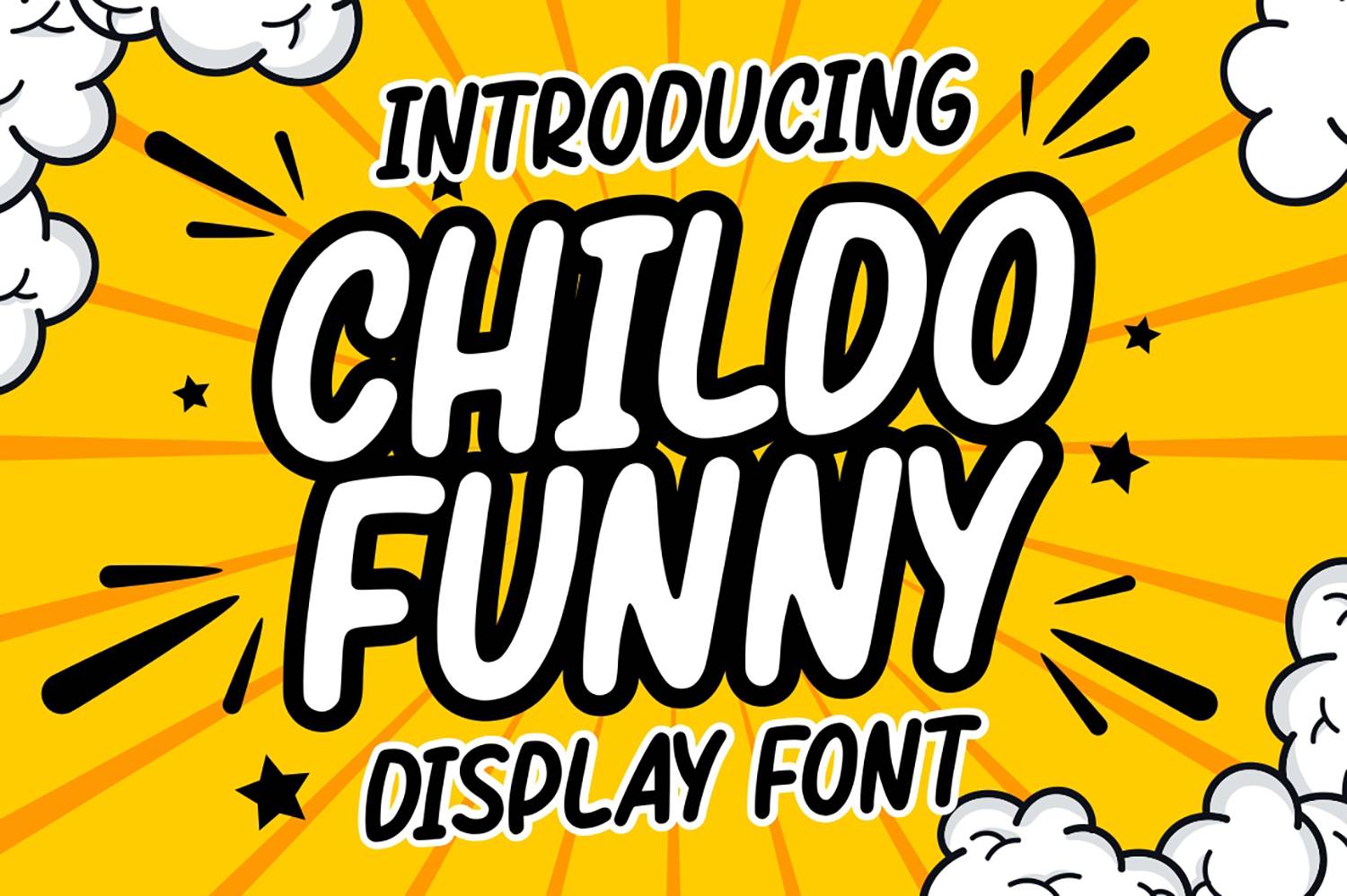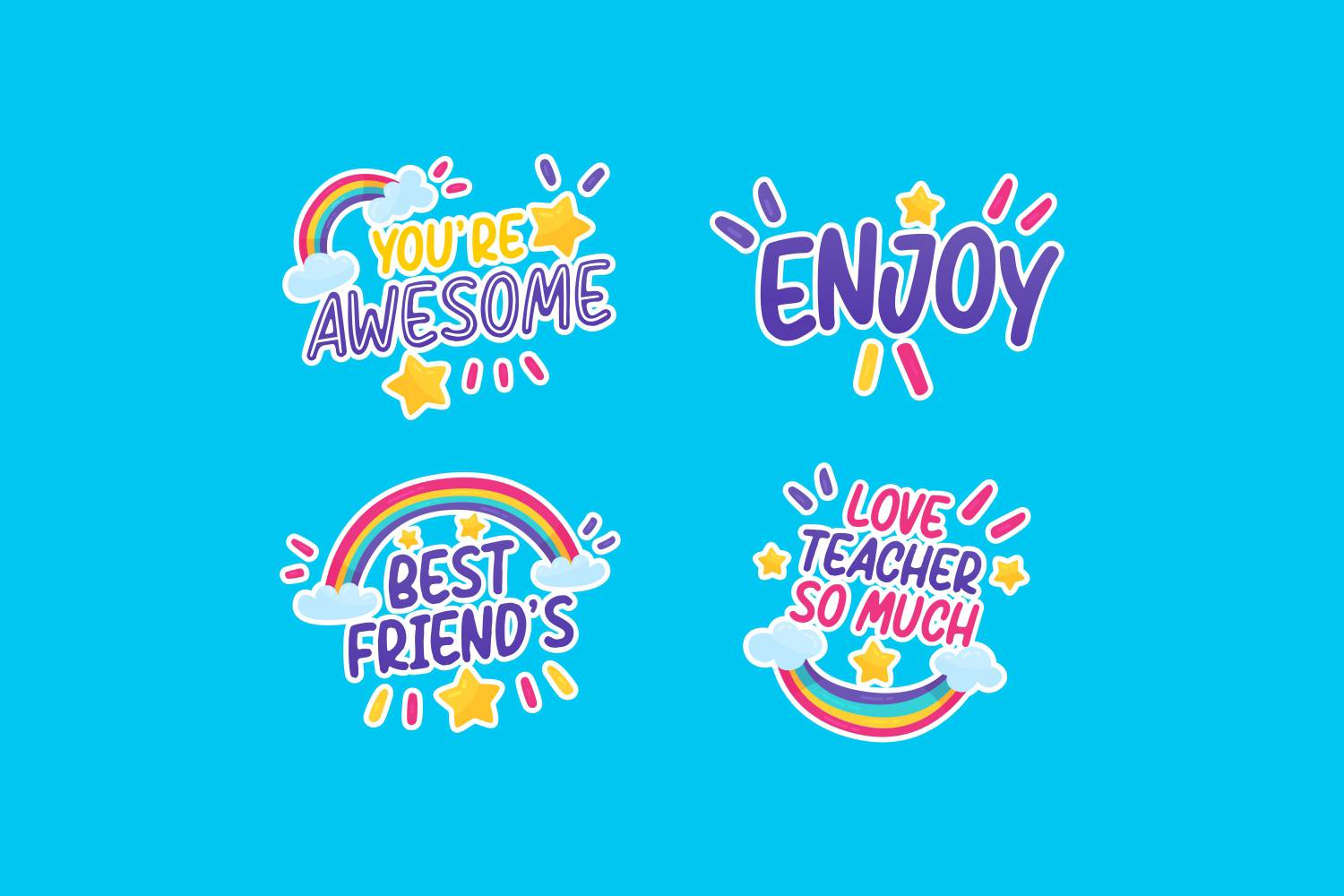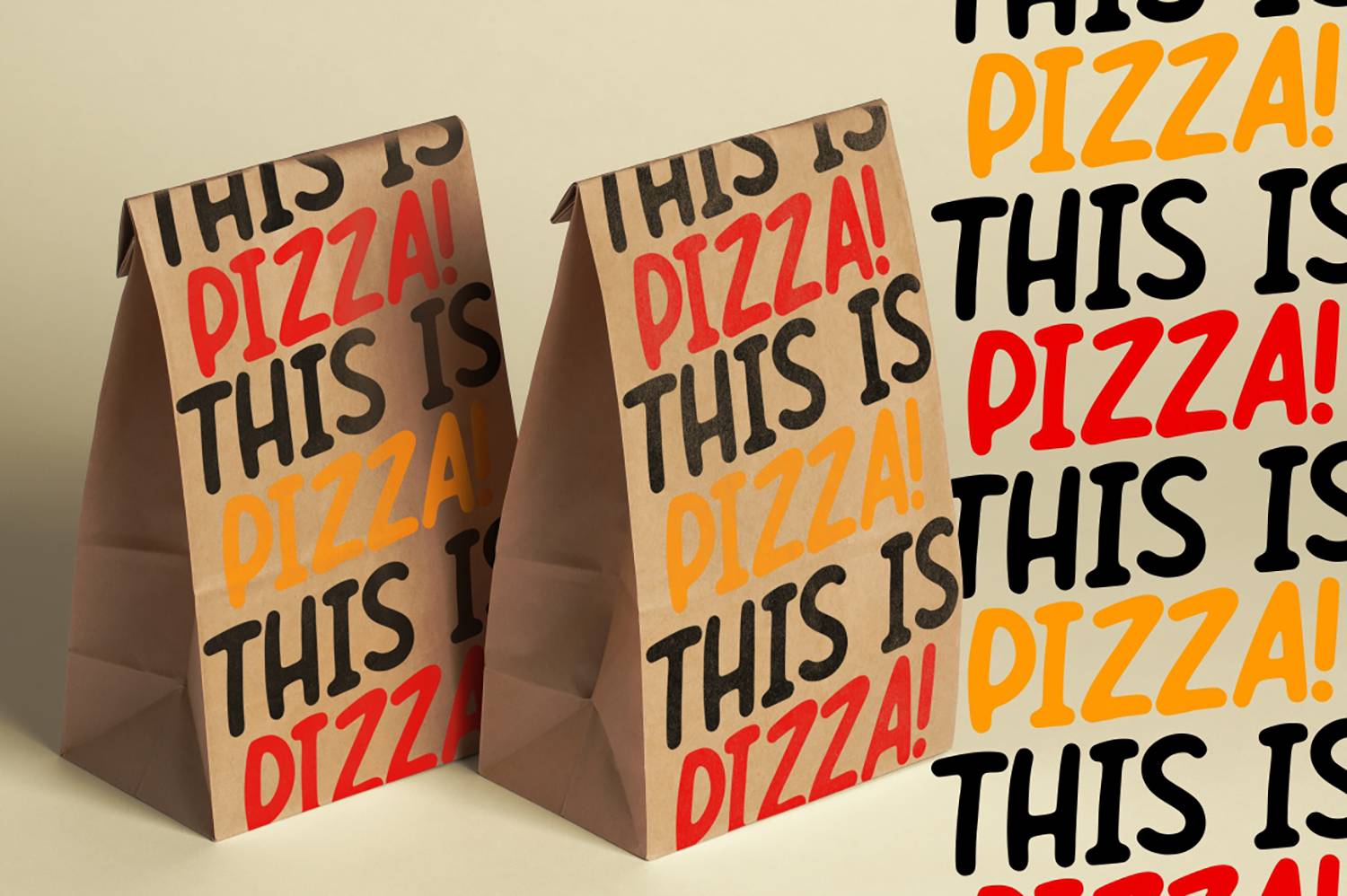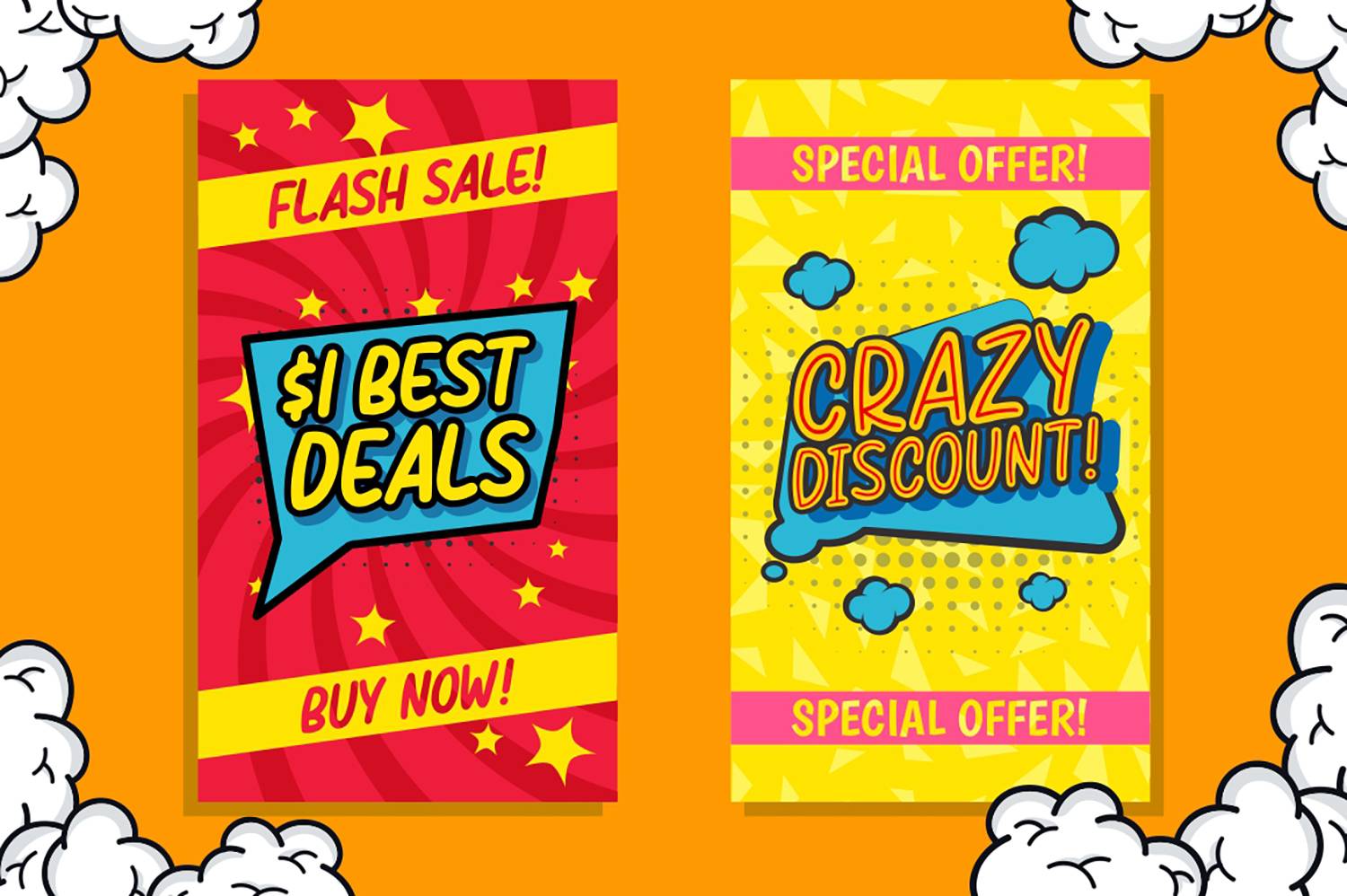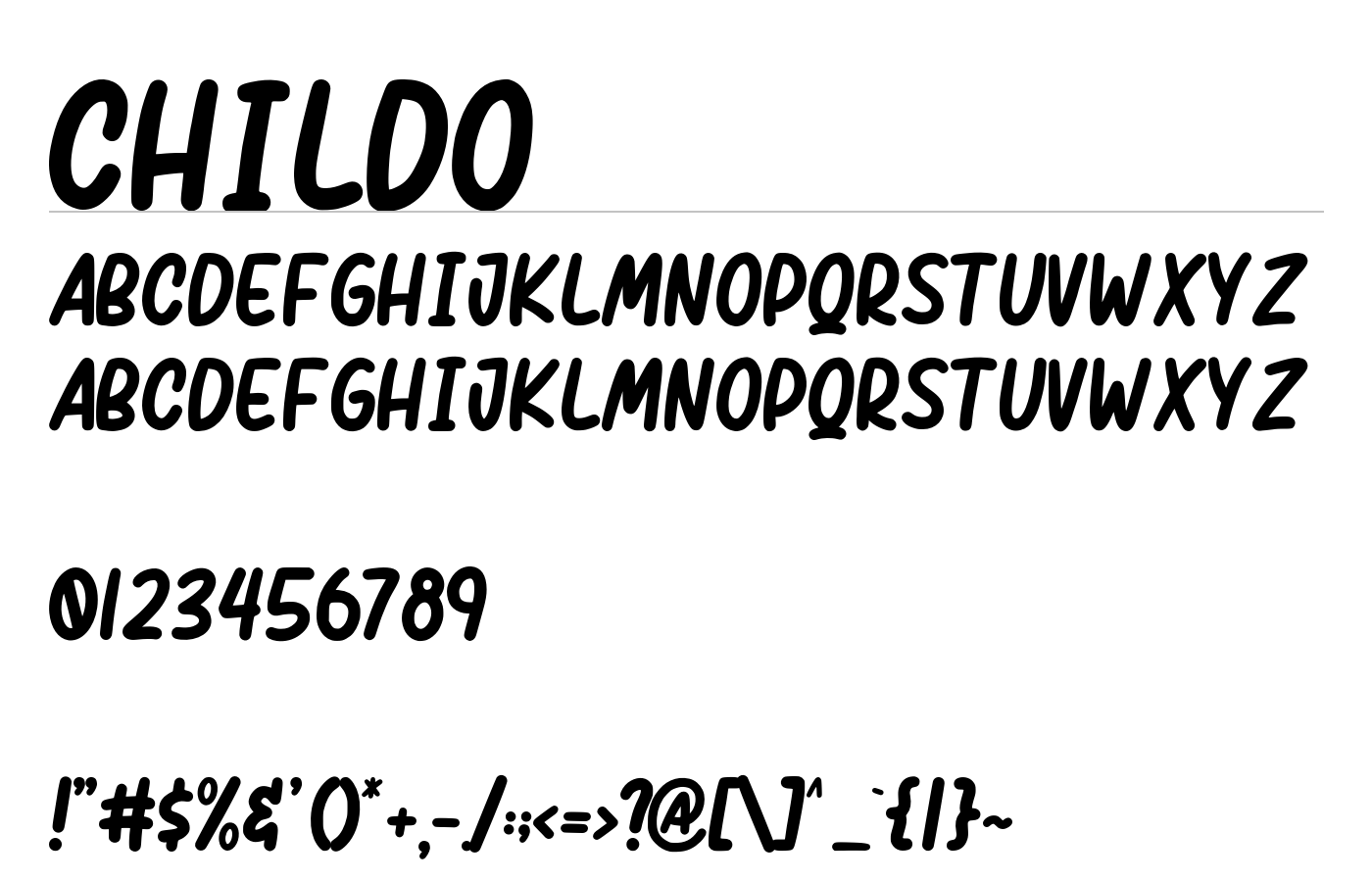
Childo is a playful, informal sans serif font with a handwritten feel, featuring bold, rounded strokes and a lively, slightly condensed style. Its friendly and approachable letterforms, paired with a moderate x-height and consistent weight, make it ideal for casual, fun designs like children's branding, invitations, or social media graphics. This font works best in headlines or display text where a warm, youthful personality is desired.
Childo Font
About Childo Font
| Font family | Childo Font |